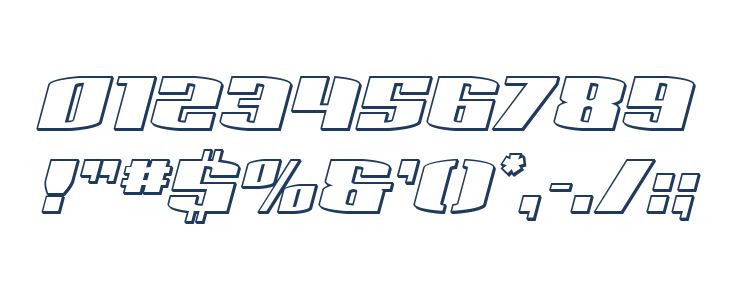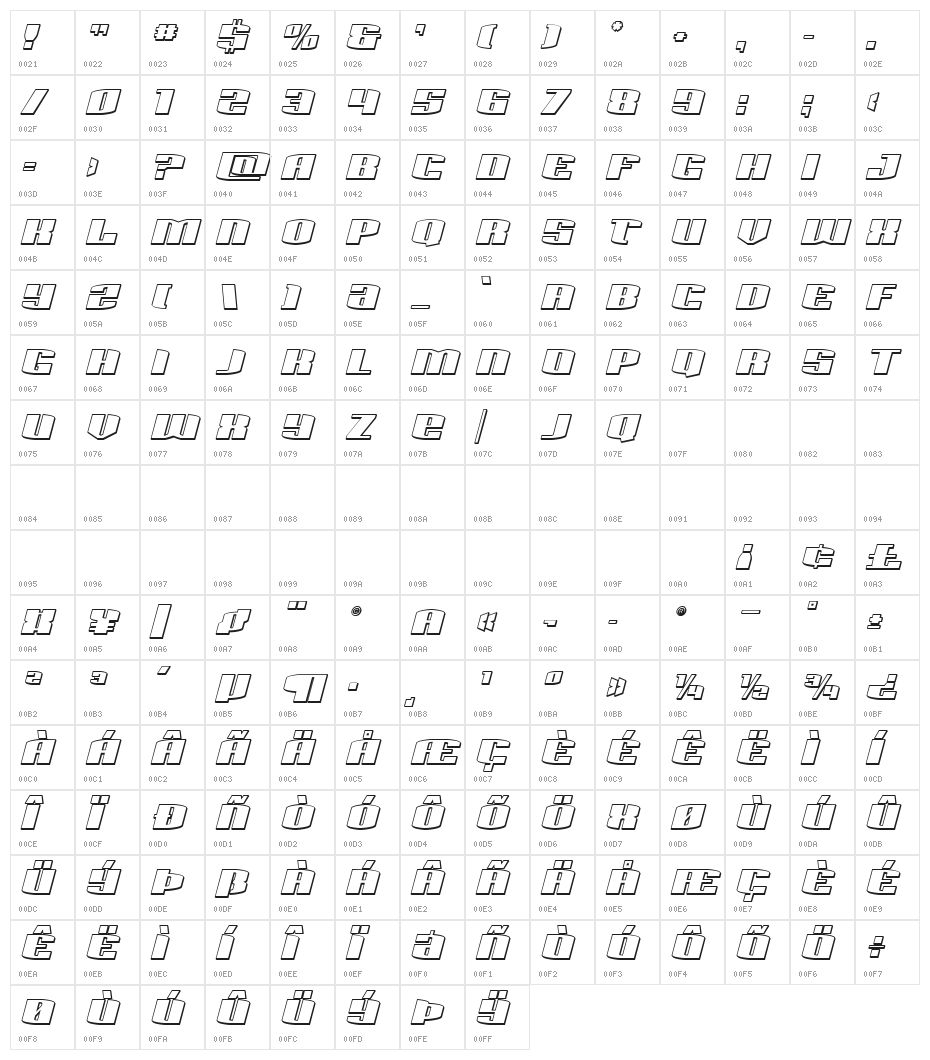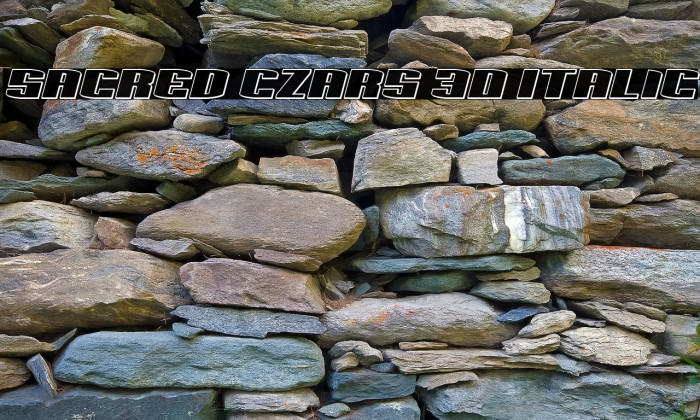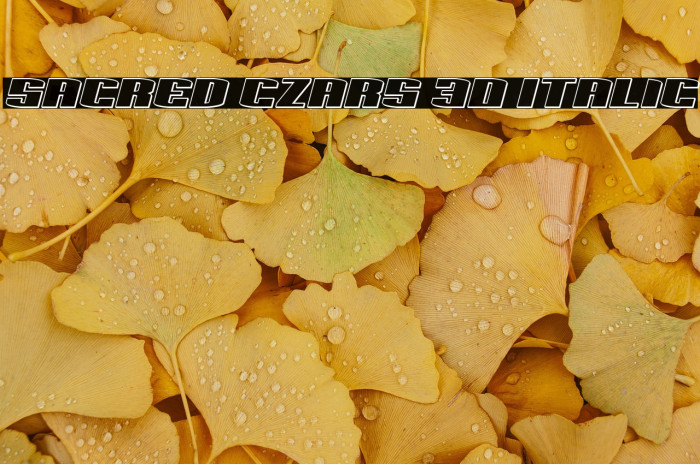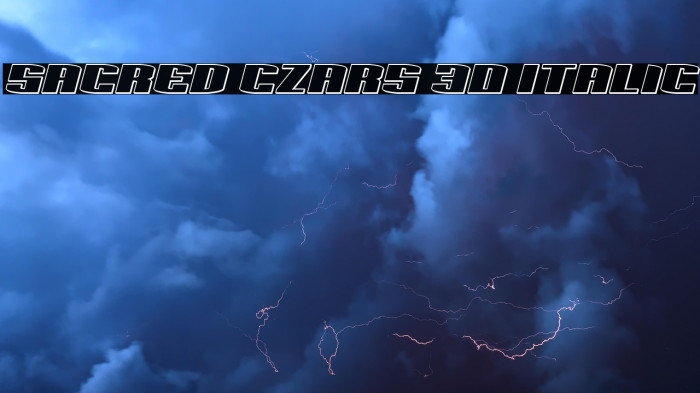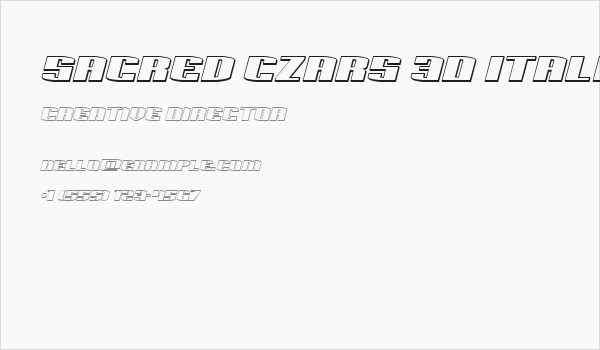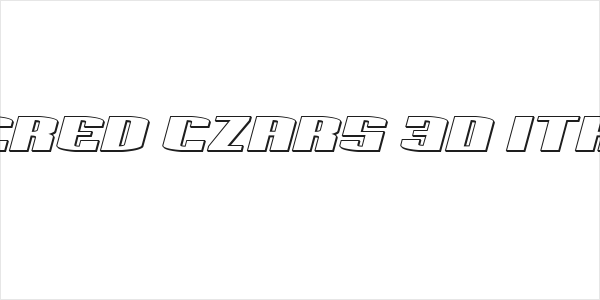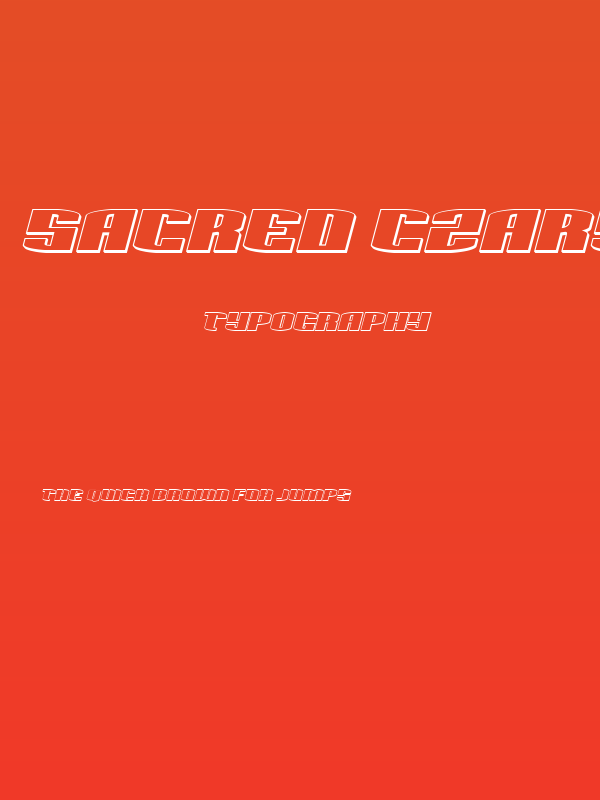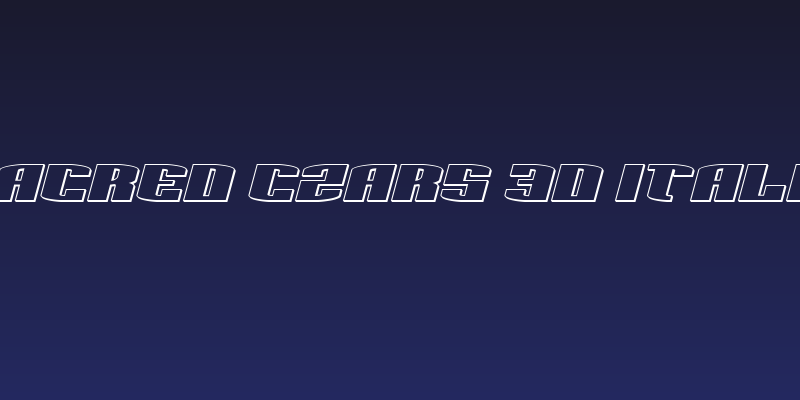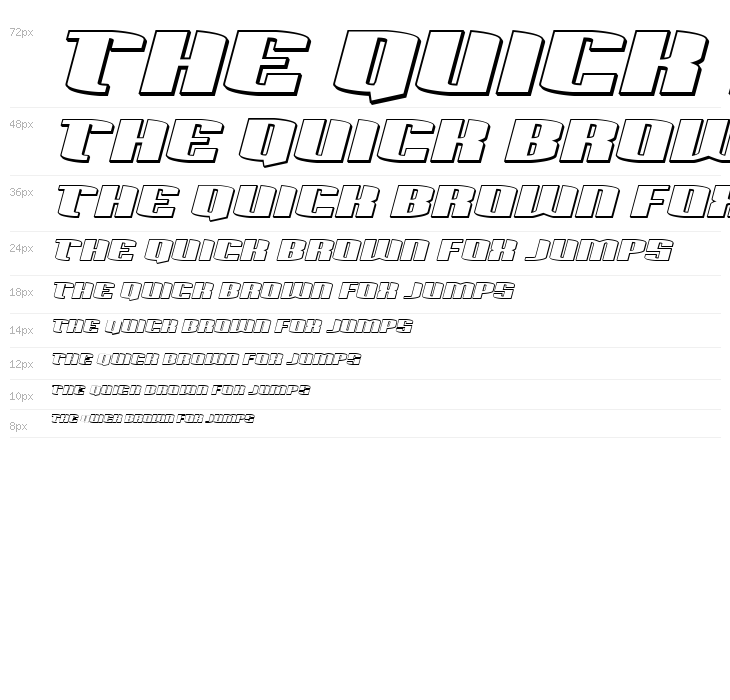
Sacred Czars 3D Italic Font
Sacred Czars 3D Italic Description
This font features a bold, three-dimensional design with an italic slant, giving it a dynamic and futuristic appearance. The characters are outlined, creating a hollow effect that enhances the 3D illusion. Each letter and number is crafted with sharp angles and clean lines, contributing to a modern and edgy style. The uppercase and lowercase letters maintain a consistent design, while the numerals and special characters complement the overall aesthetic. This font is ideal for projects that require a strong visual impact, such as posters, video game titles, or branding materials.
| Proposed Projects | Ideal for video game titles, posters, branding, and any project needing a strong visual impact. |